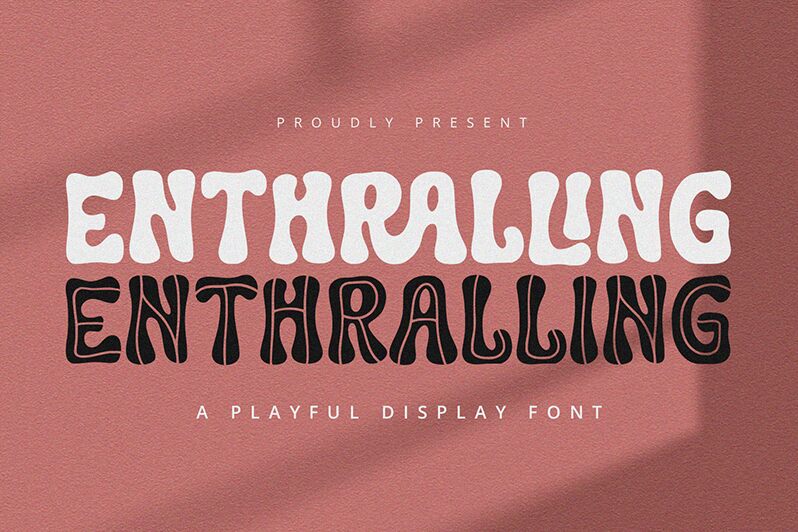
Enthralling
Enthralling font by Alpaprana Studio is a groovy display typeface inspired by the whimsical spirit of the 1960s. Featuring bold weight and bubble-like characters, this retro font is perfect for bringing text to life with fun ambiance and style. It’s curvy, charming, and bound to excite audiences wherever it’s used.